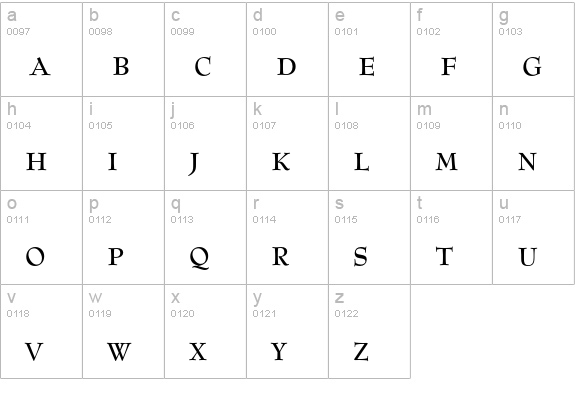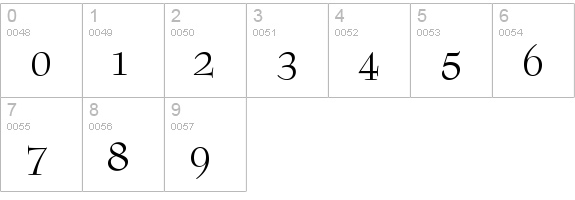
Bernhard Modern Small Cap Font Details
Bernhard Modern Small Cap is a sophisticated and elegant font that exudes a sense of refinement and class. Its small caps design adds a touch of uniqueness while maintaining readability and style. This font is perfect for creating professional documents, elegant invitations, or stylish branding materials. And the best part? Bernhard Modern Small Cap is available for free download at FontsMarket.com. You can easily add this timeless font to your collection and elevate your designs with its classic charm and modern appeal. Don't miss out on the opportunity to enhance your projects with this stunning typeface, completely free of charge.